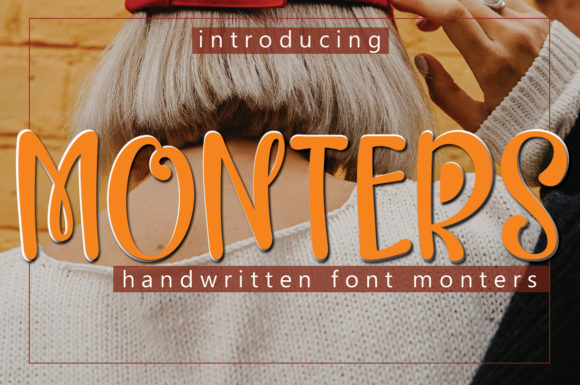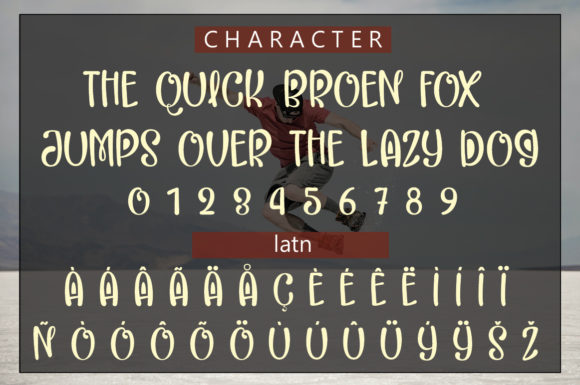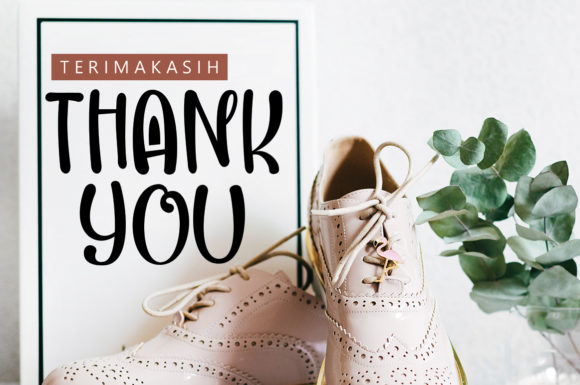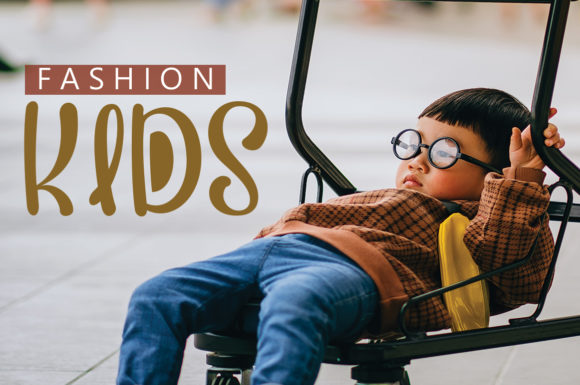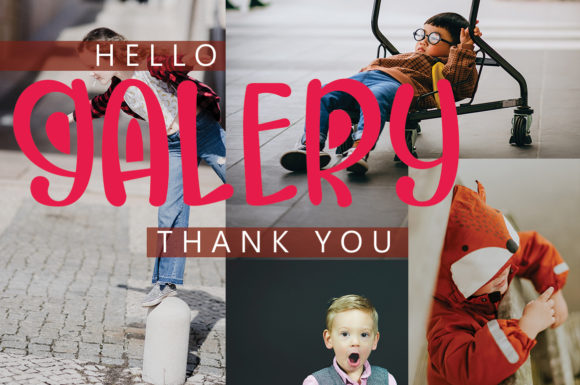
Monters Font
About Monters Font
Monters is a beautiful and casual font with a friendly feel. It is perfect for your Instagram or calligraphy scripts, for DIY projects. It will turn any creative idea into a true piece of art!